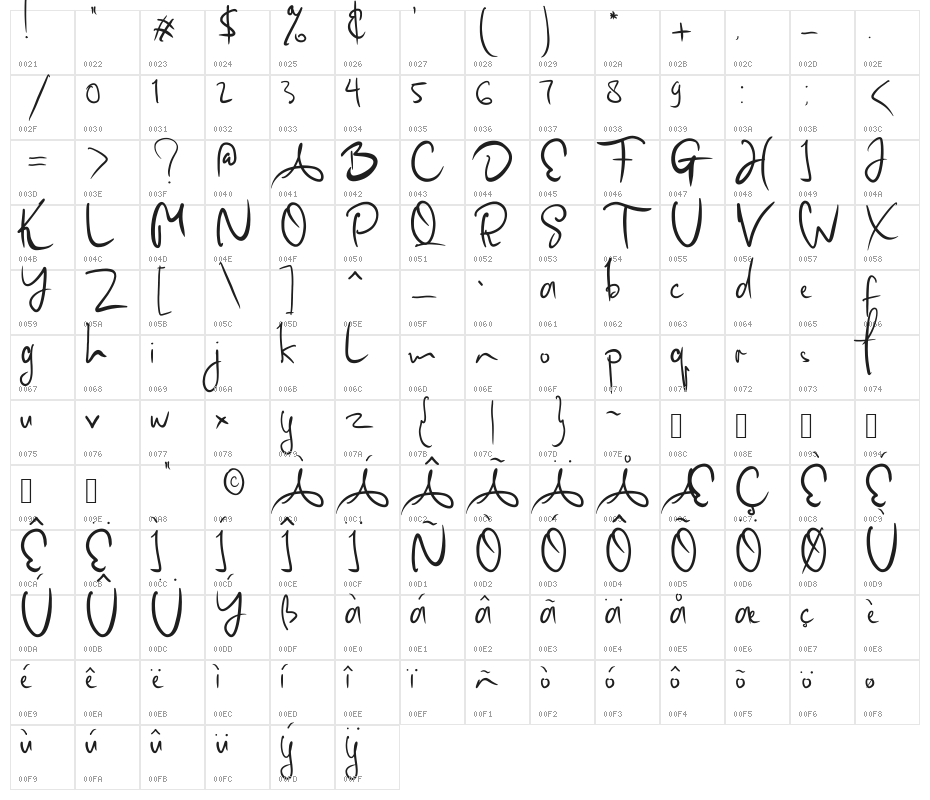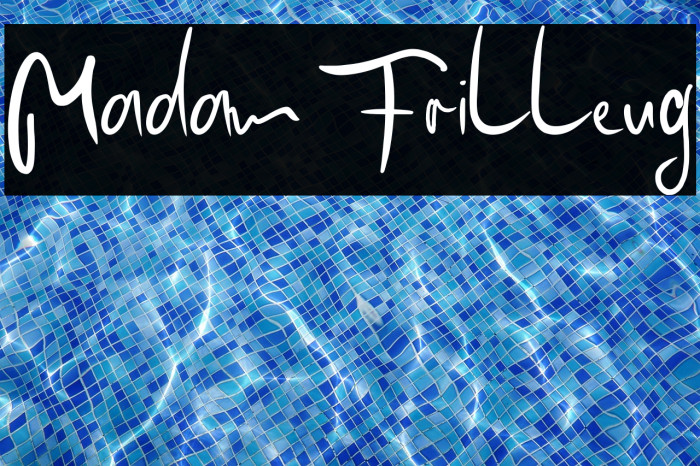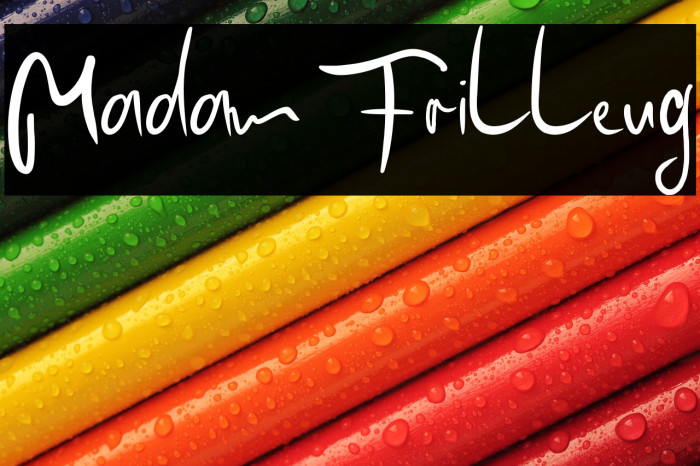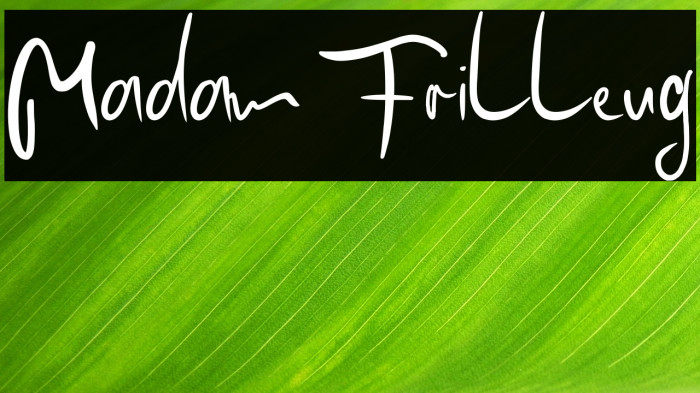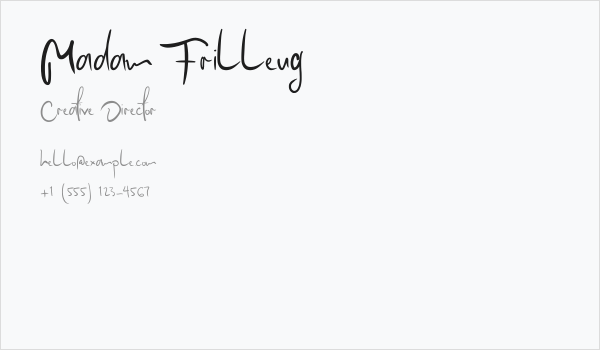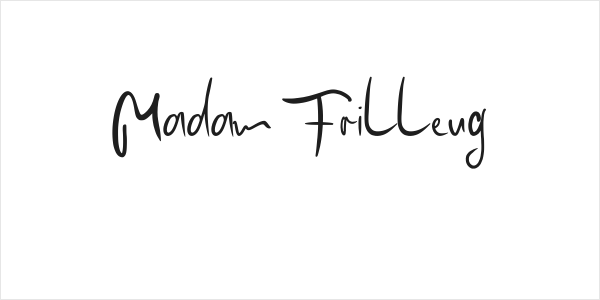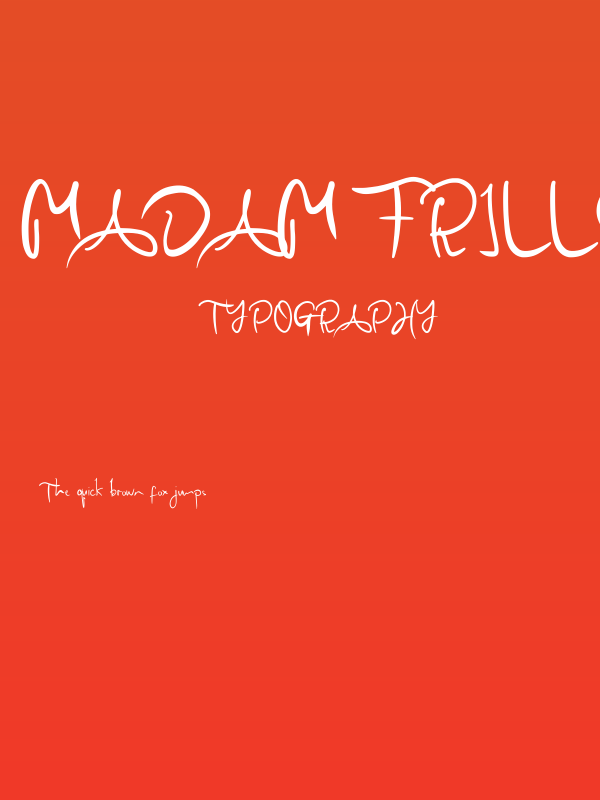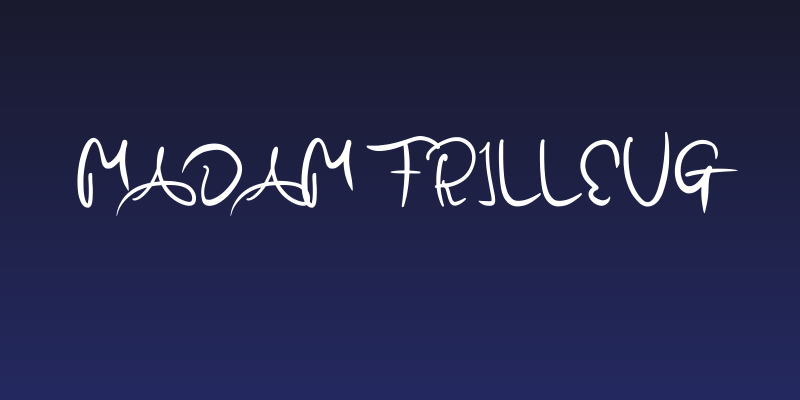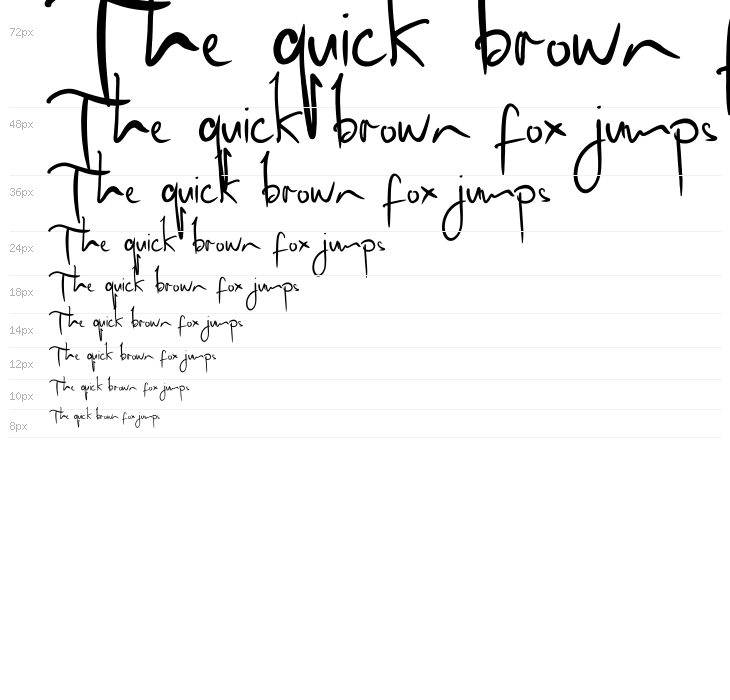
Madam Frilleug Font
Madam Frilleug Description
This font exhibits a playful and whimsical handwritten style, characterized by its fluid and dynamic strokes. The uppercase letters are bold and expressive, with a mix of rounded and angular forms that create a sense of movement. The lowercase letters maintain a consistent flow, with some characters extending below the baseline, adding to the font's lively appearance. Numbers are clear and legible, while the special characters retain the same energetic style. Overall, this font conveys a sense of creativity and spontaneity, making it ideal for projects that require a personal touch.